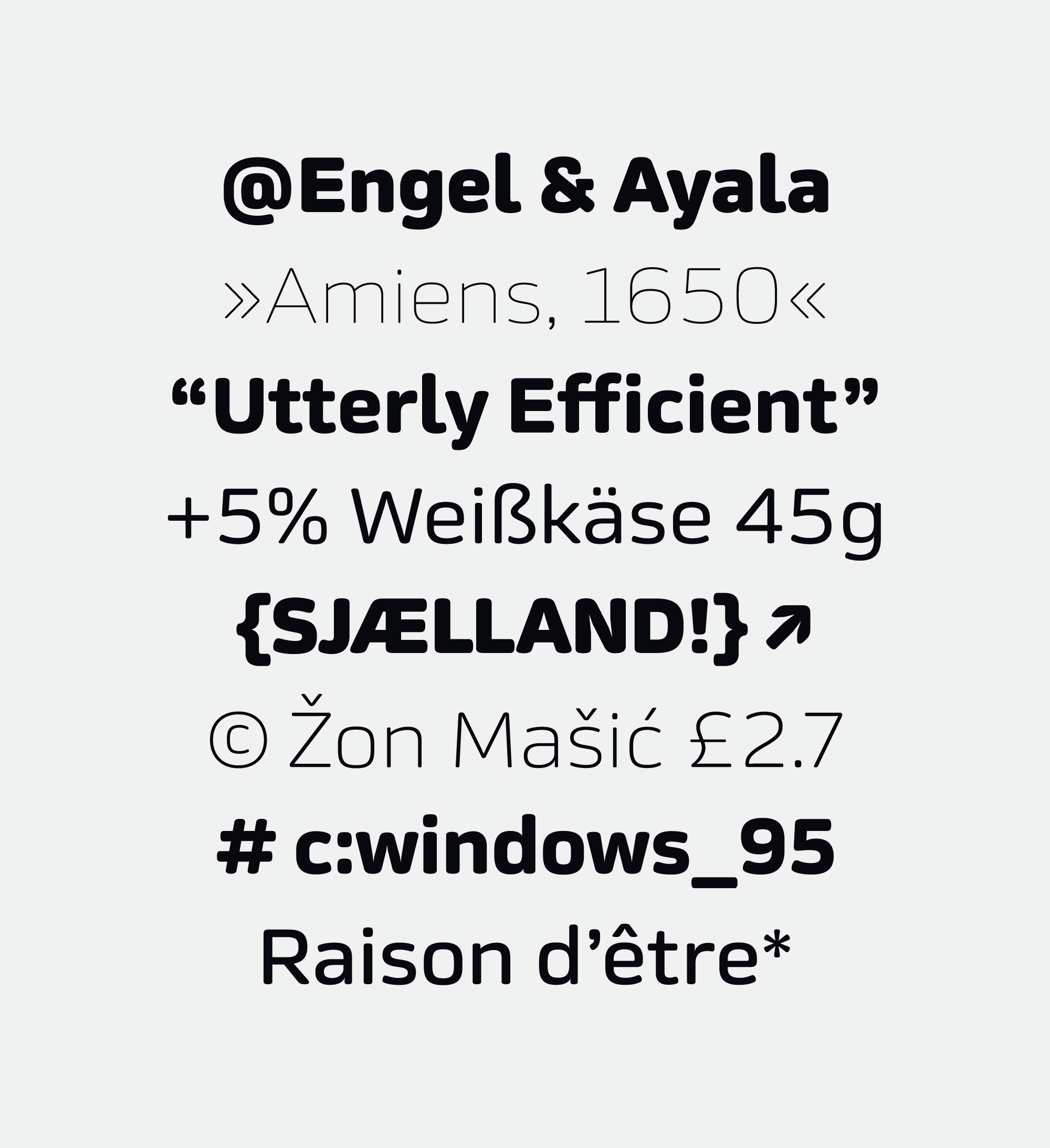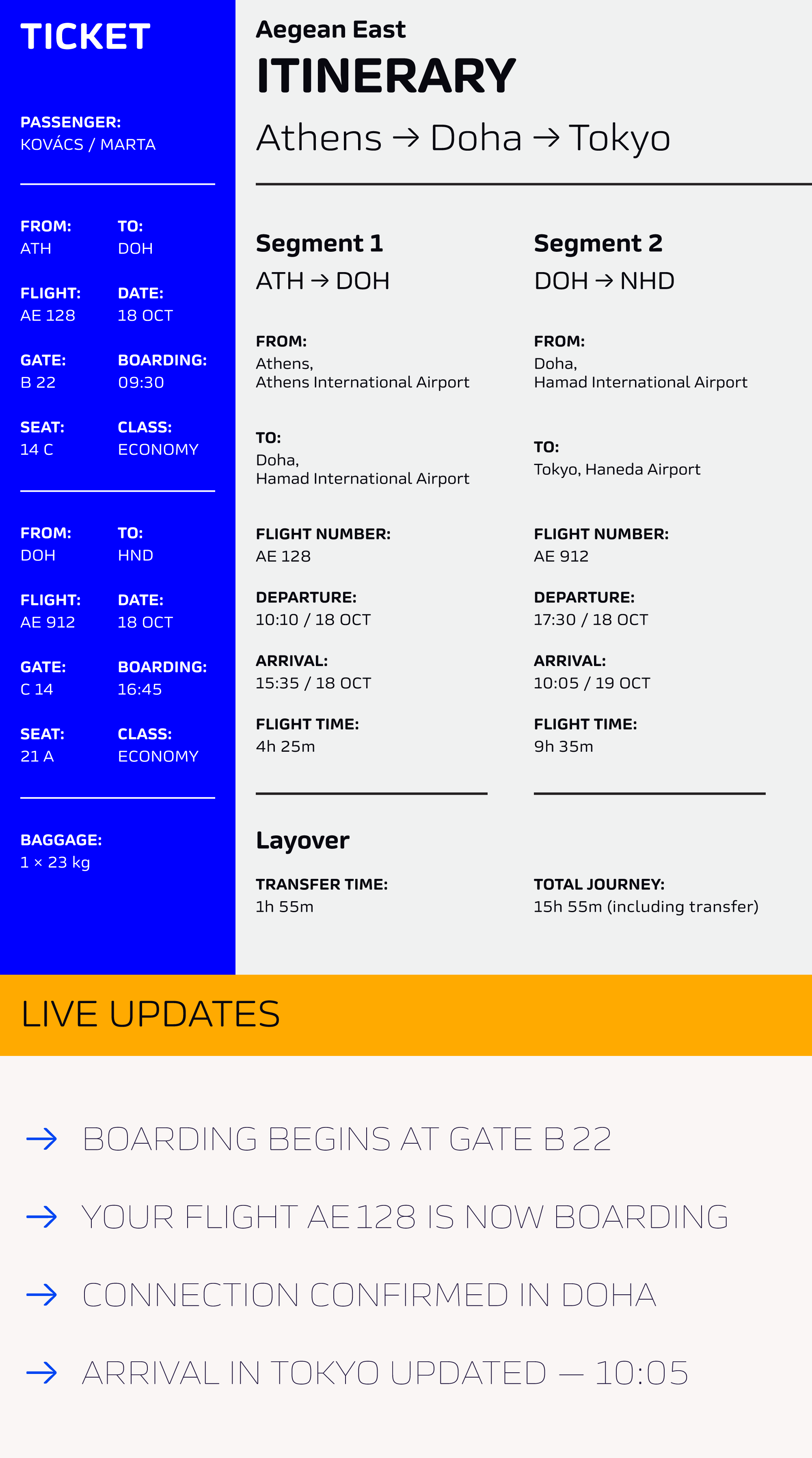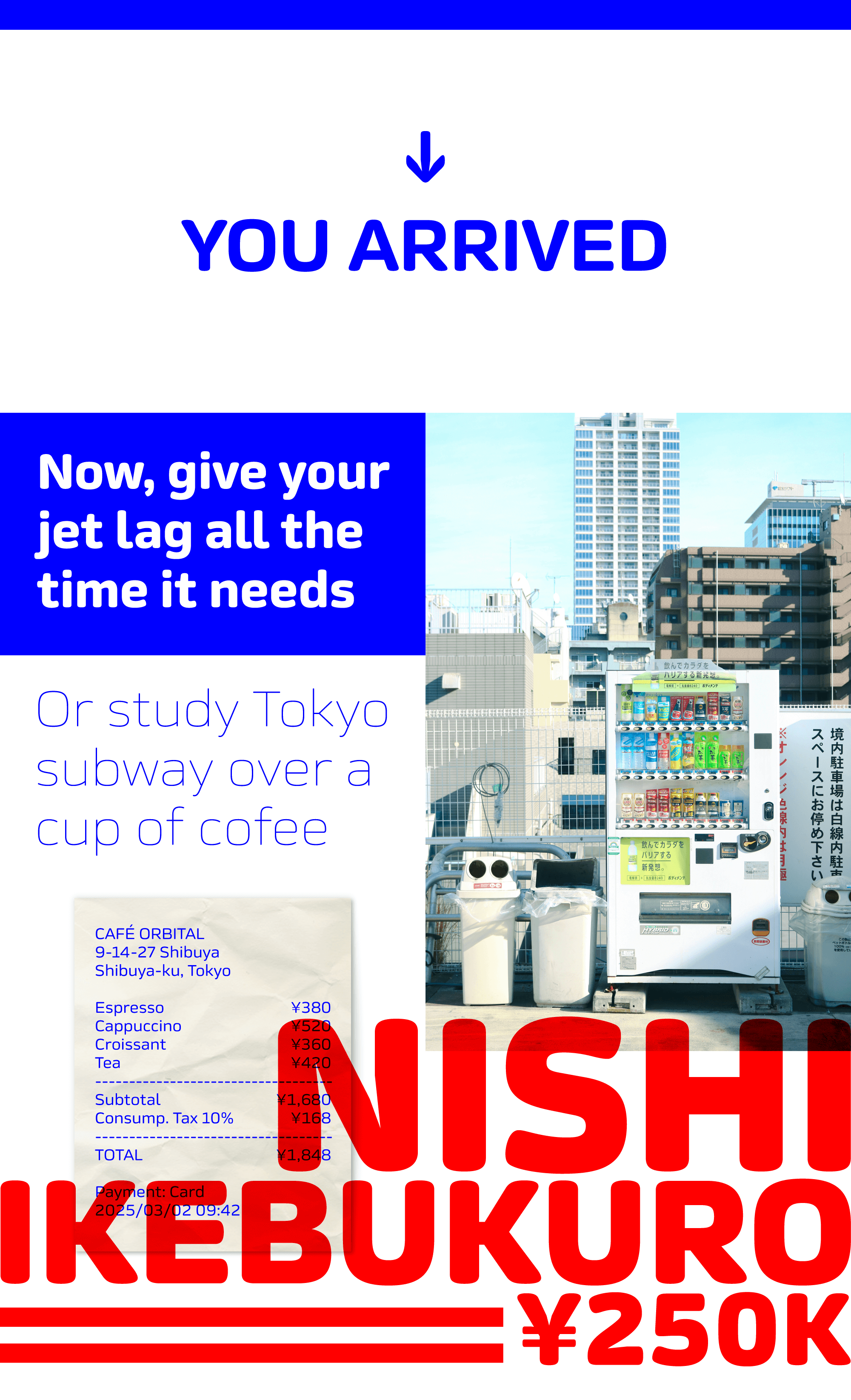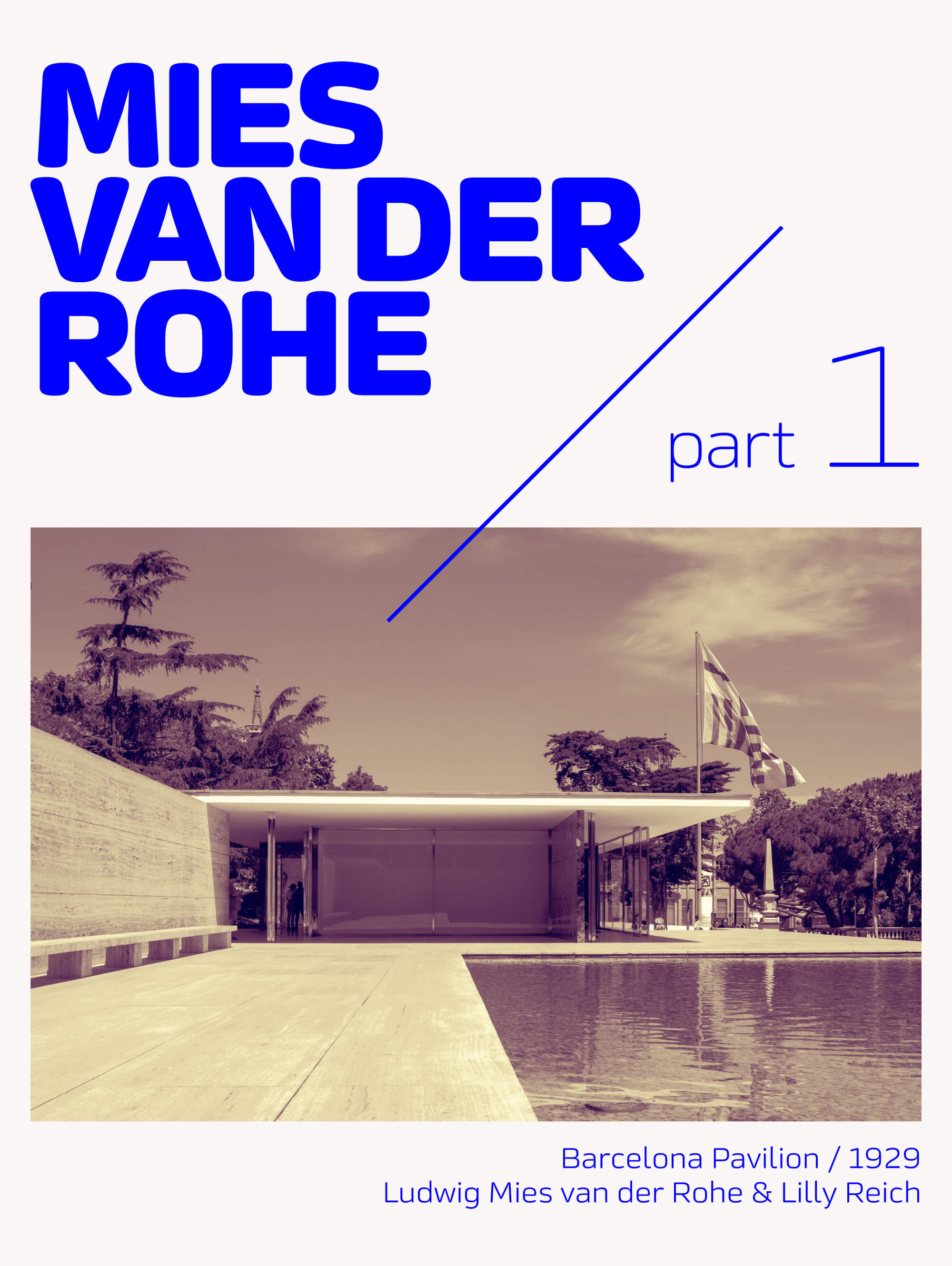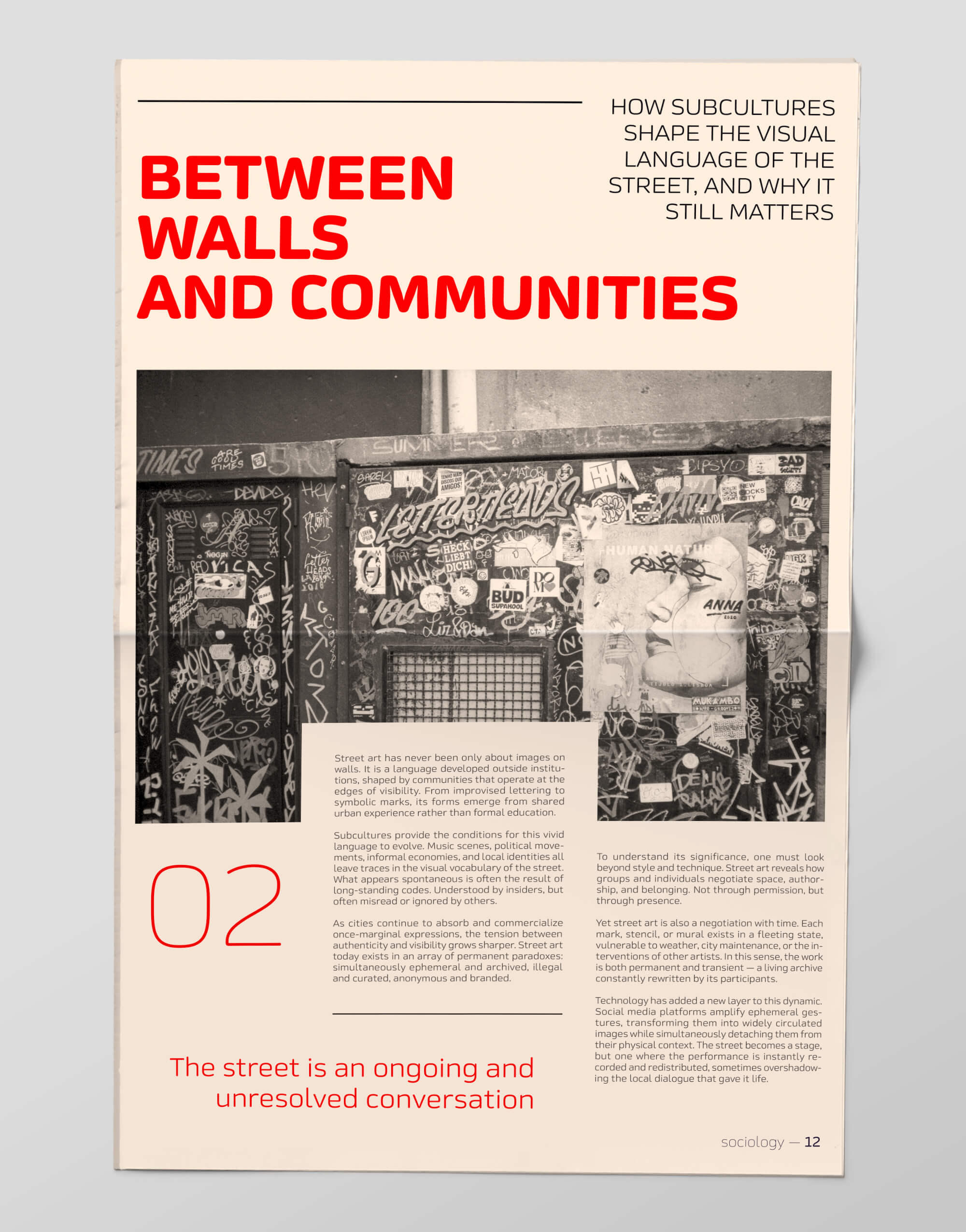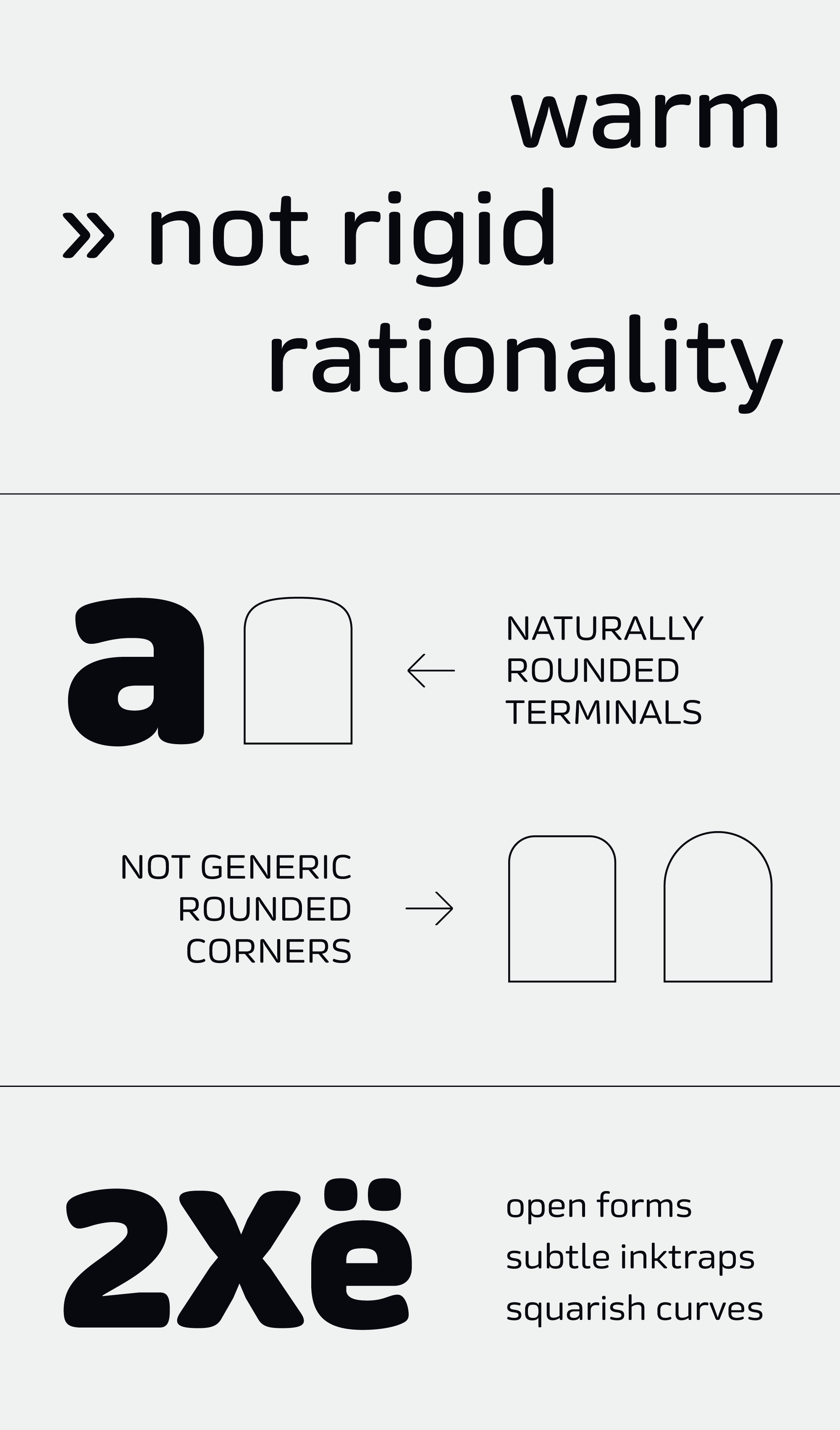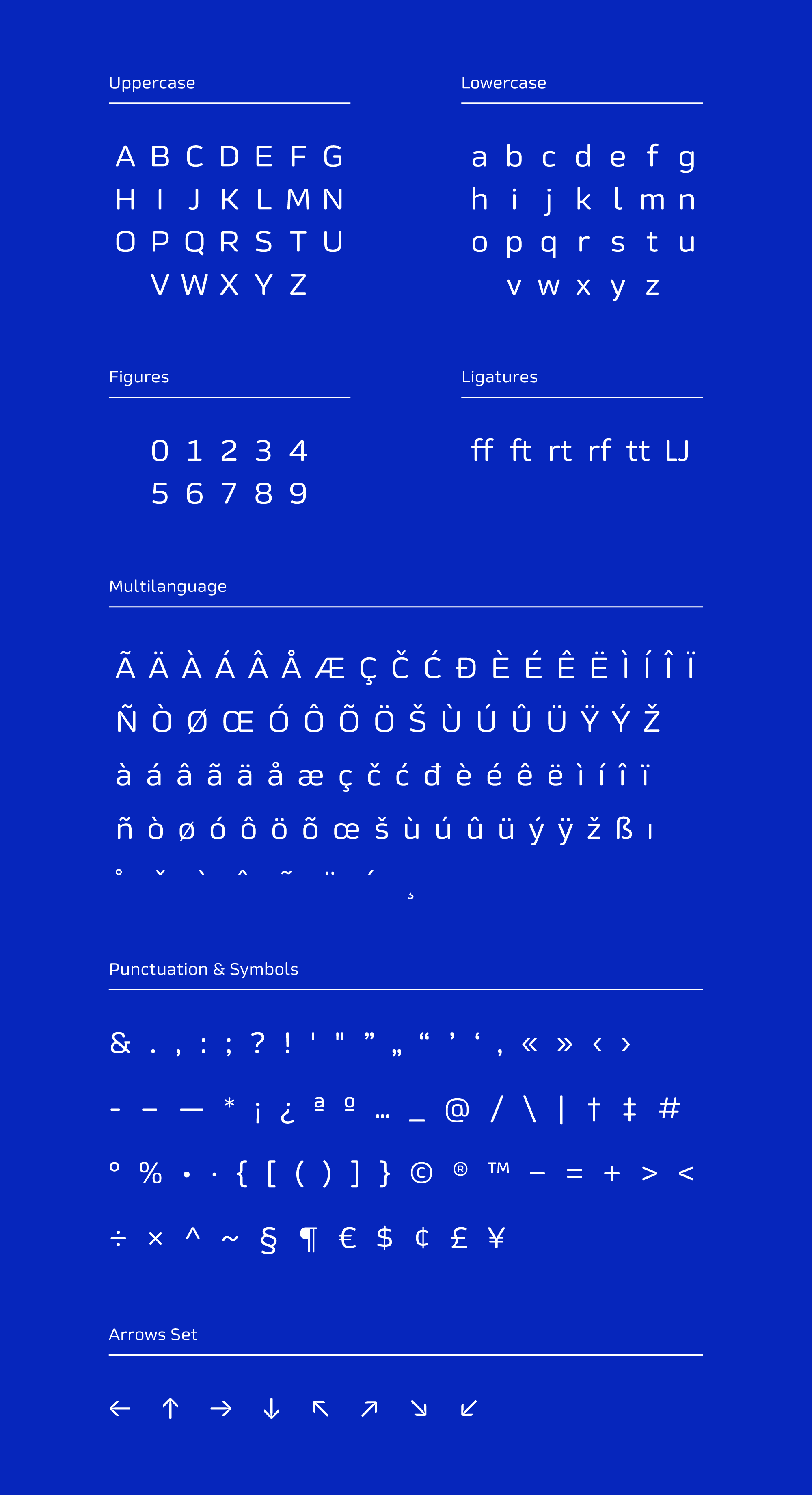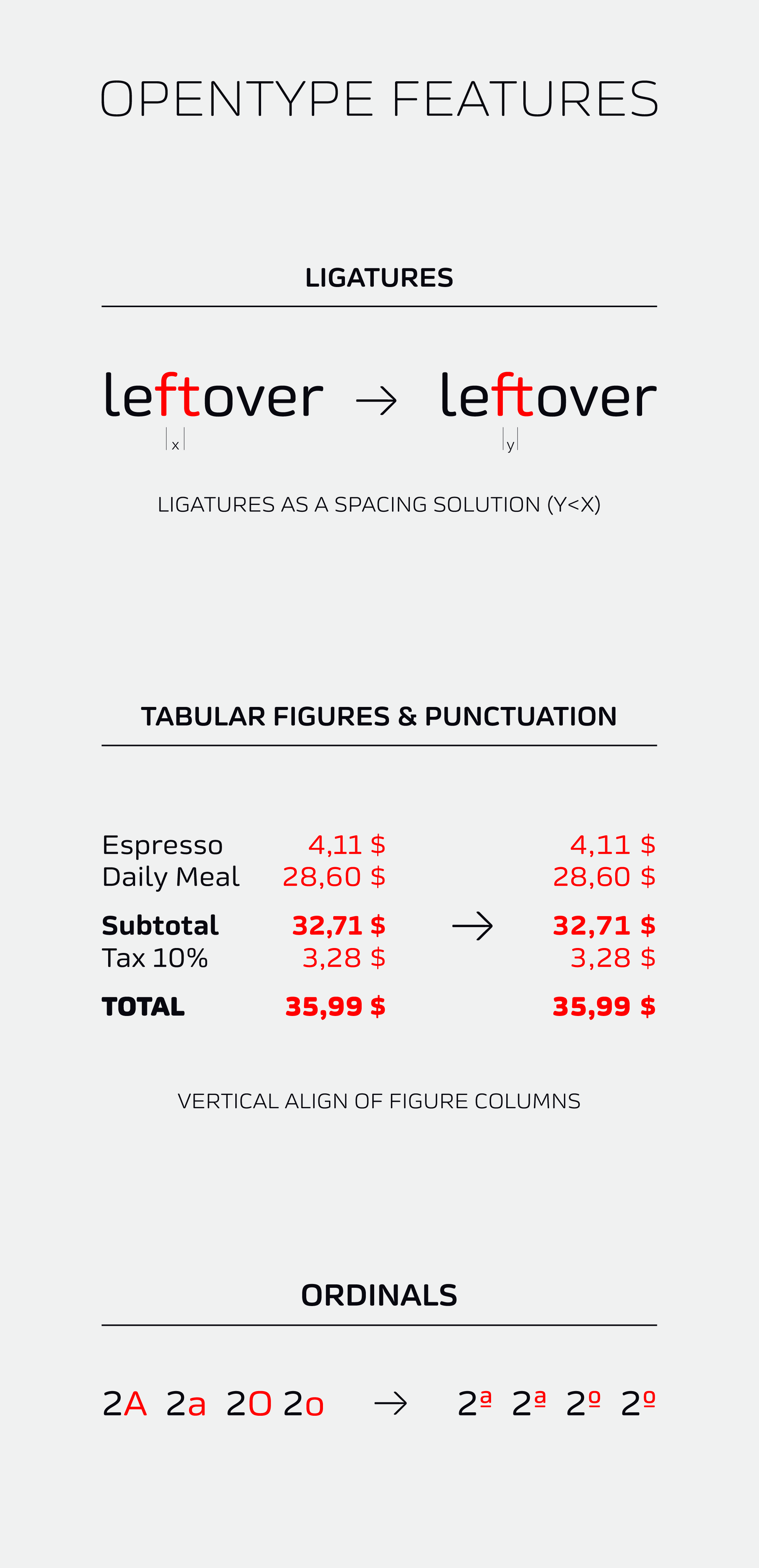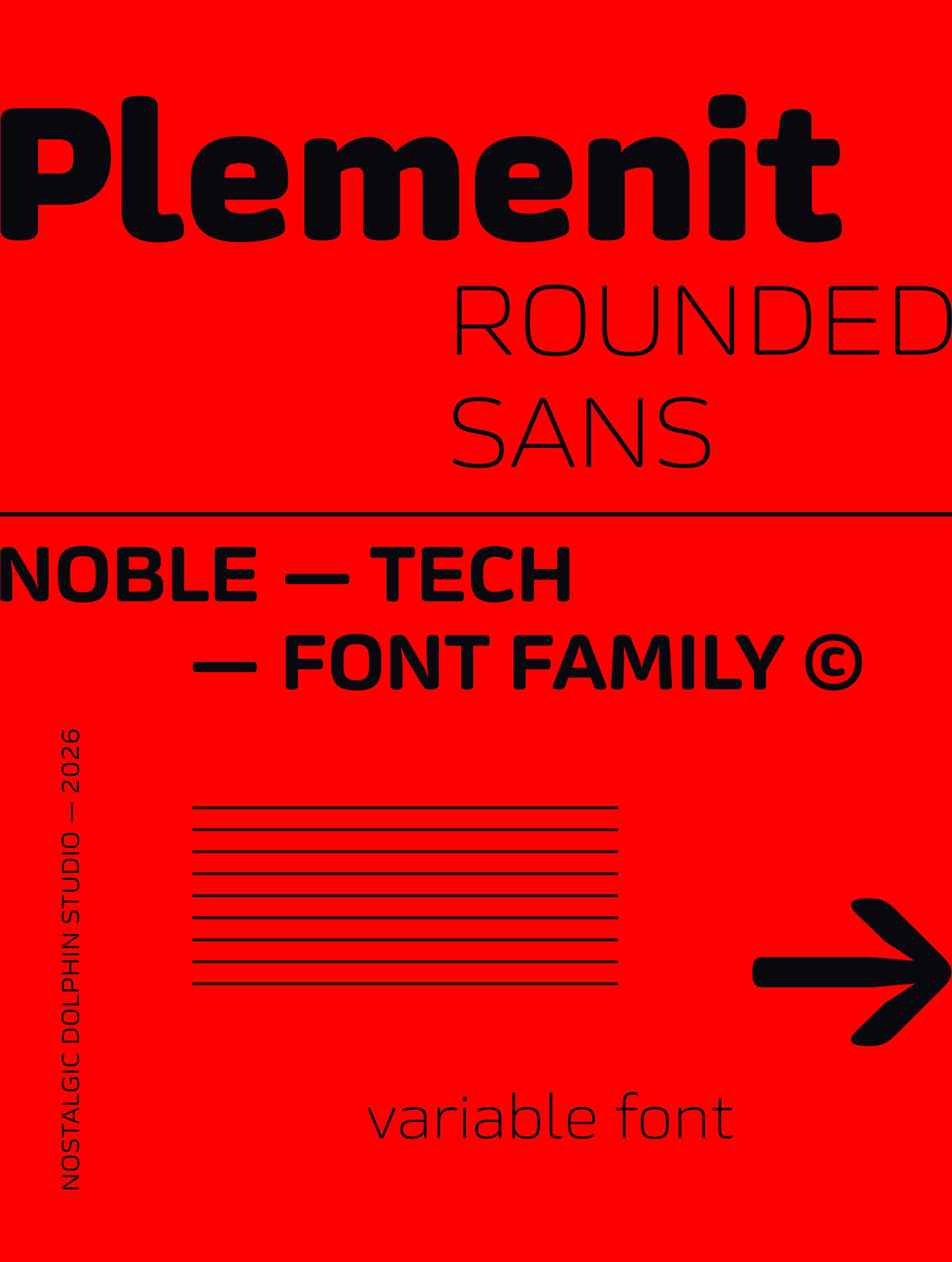
PLEMENIT ROUNDED
SANS FONT FAMILY (9 STYLES + VARIABLE)
Plemenit Rounded is a distinct sans-serif typeface embodying the warm, human-scale rationality of the digital age.
Rounded fonts are typically derived from sharp-corner originals — a shortcut that rarely gives satisfying results. Plemenit takes a different approach: it was planned and designed as rounded from the ground up. Its corners are naturally shaped as shallow superellipses, avoiding the awkwardness of generic rounding. Terminals are fully rounded with no straight segments, yet without the excessive visual lightening of circular terminals. The result is a noble-tech personality that fills a genuine gap in the type market.
Plemenit starts from the classic rationalist paradigm — minimal open forms, squarish curves, high x-height — but owes nothing to grids or algorithms. It was designed by eye, through numerous iterations of careful optical adjustment. Classic typographic virtues guided every decision: balance, proportion, rhythm, consistency, curve quality, and spacing. This is the essence of our boutique approach to type design — fine craft, not mass production. Elaborate manual kerning completes the picture.
This super clean display typeface is designed to deliver powerful verbal and visual statements. It is primarily built to serve brands and campaigns that demand a strong and direct presence.
The family consists of 9 upright weights and a variable font. This means you are not limited to predefined weights, because you can control the font weight using the slider. Pick any number from 100 to 900, which means 800 possible font weights. The family is complemented by a matching arrow set.